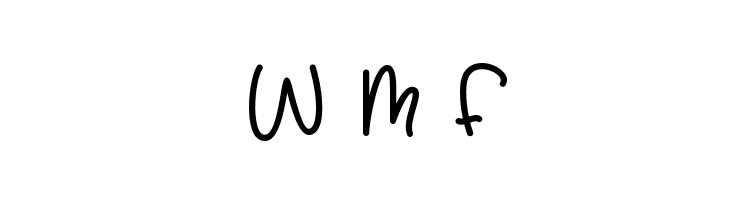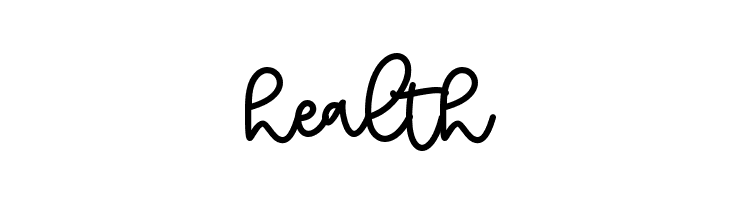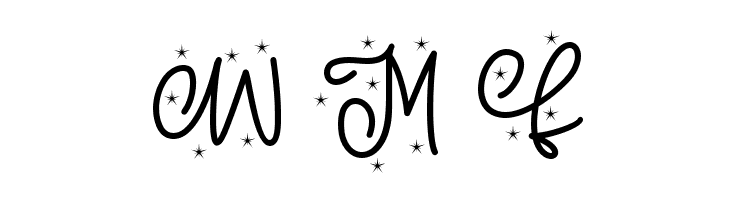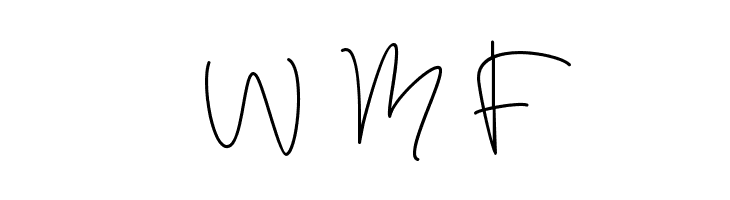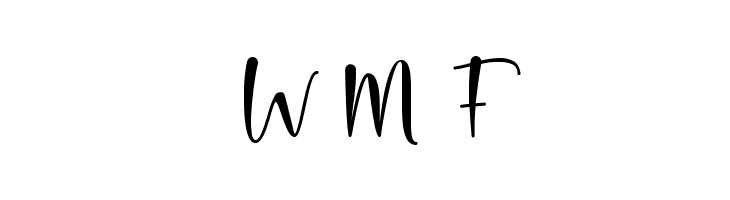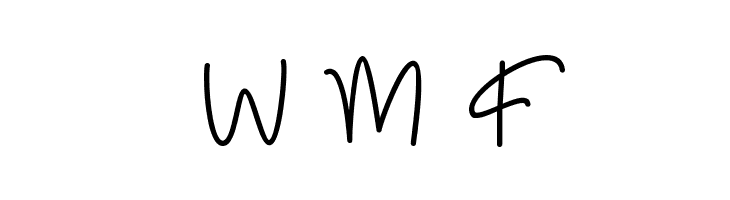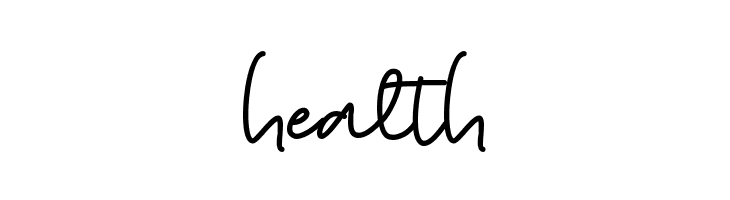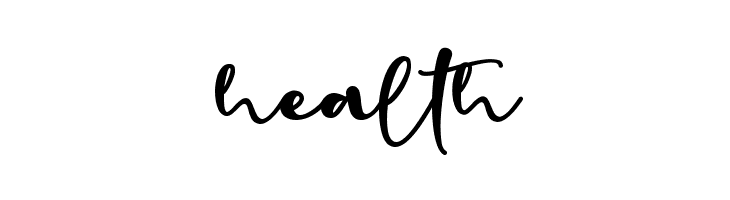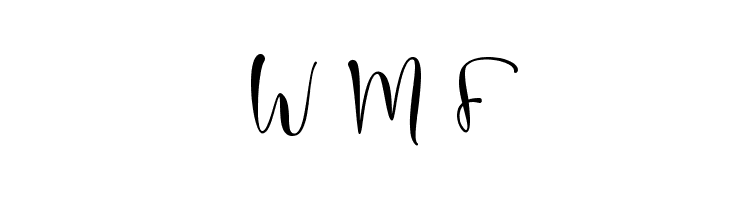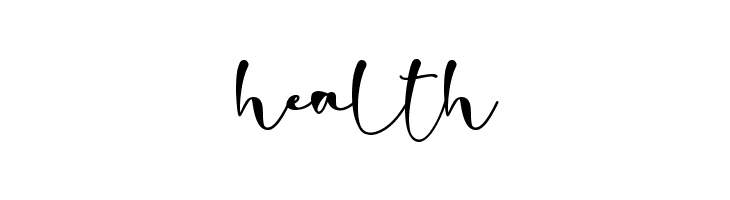
A playful and casual handwritten font with fluid, connected letterforms.
A festive, decorative font with star embellishments and curly accents, perfect for holiday themes.
A playful and elegant script font with a handwritten style.
A stylish, handwritten font with elegant, flowing lines and a modern touch.
A playful and romantic script font with flowing, cursive letters and charming flourishes.
A playful and energetic handwritten script font with smooth, connected strokes.
A lively and expressive handwritten font with fluid, dynamic strokes.
A whimsical, cursive font with elegant curves and artistic flair.
A lively and elegant script font with flowing curves and dynamic slant.
A playful, festive handwritten script with bold, rounded characters.